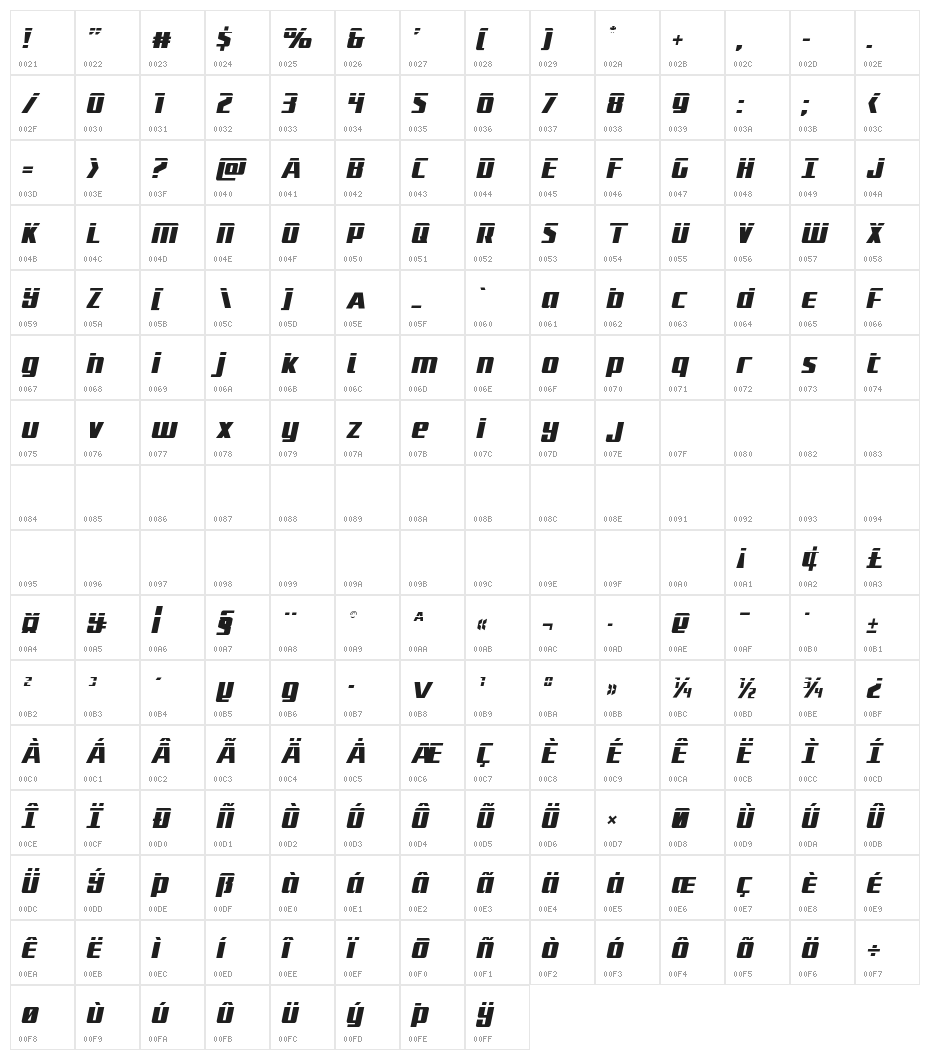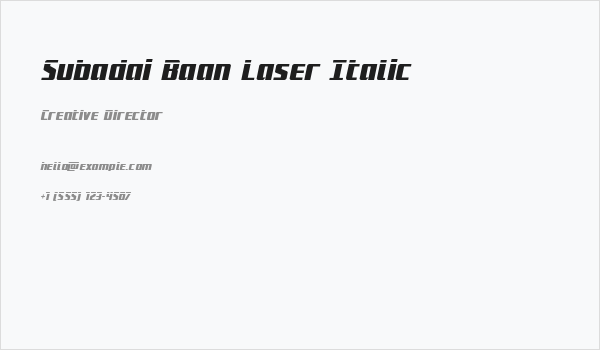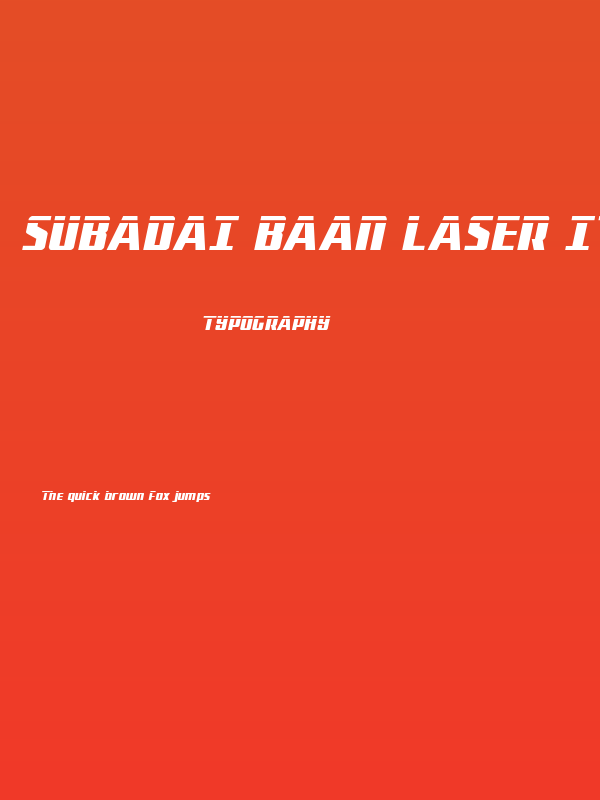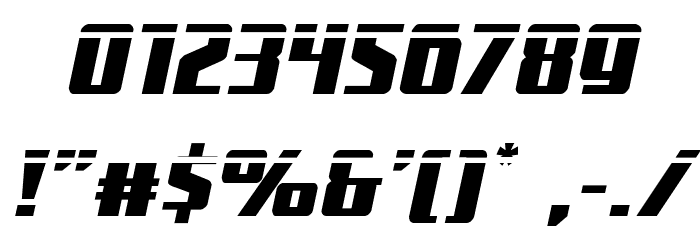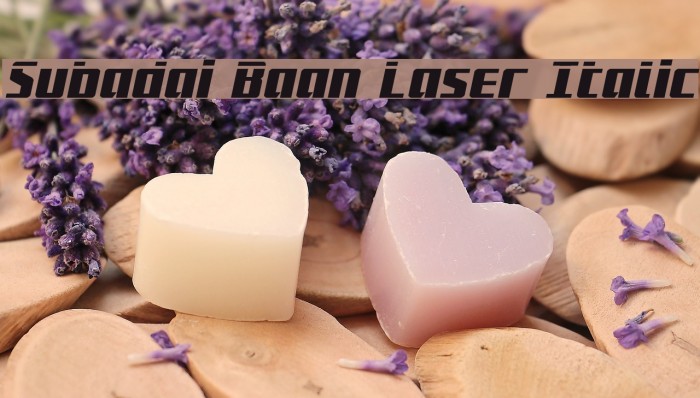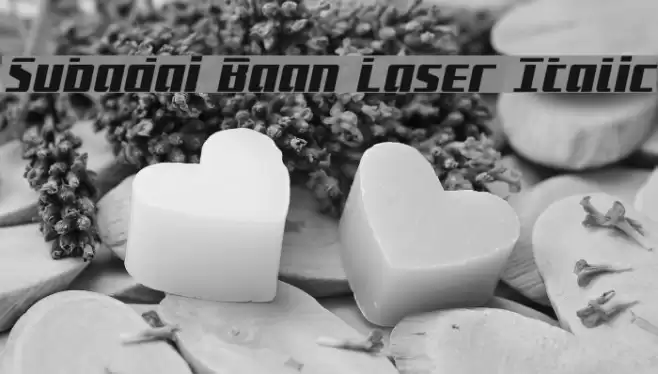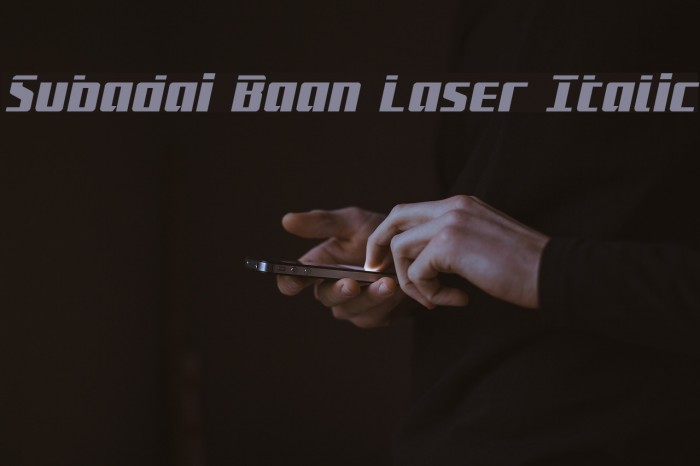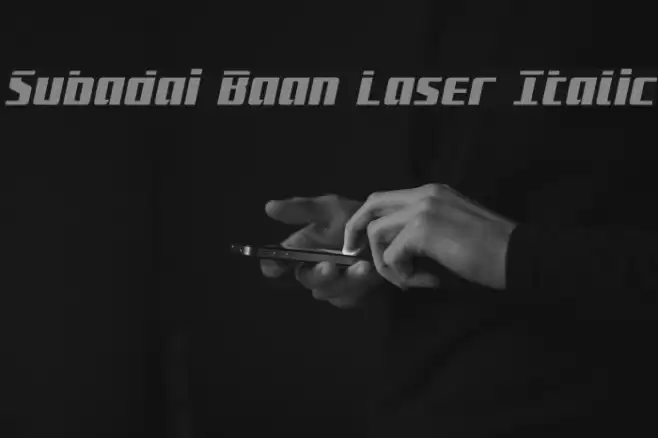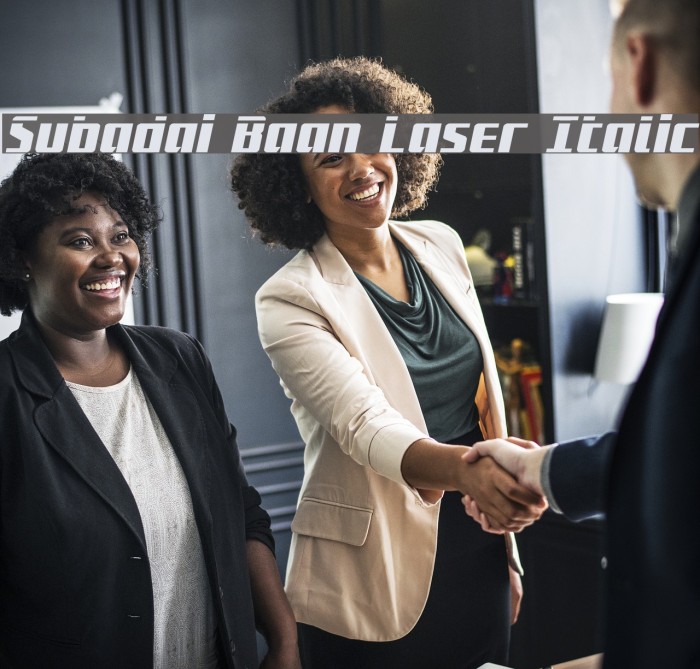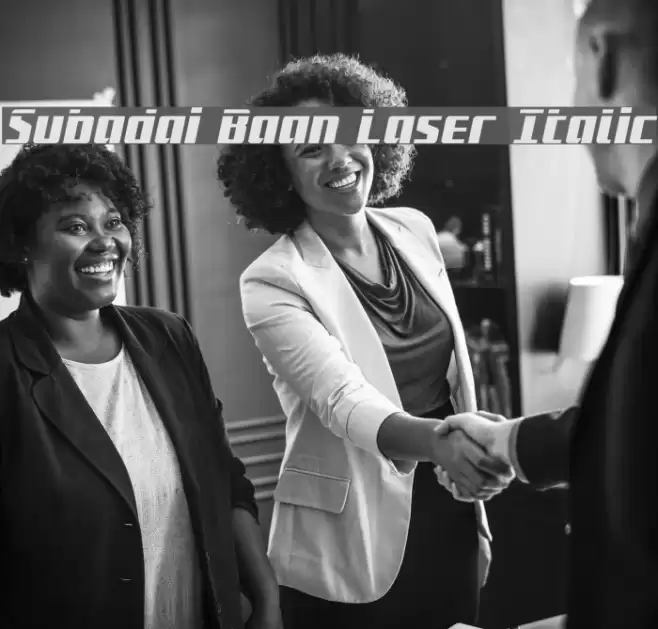
Subadai Baan Laser Italic Font
Subadai Baan Laser Italic Description
This font exhibits a bold and dynamic style with a futuristic flair. The characters are sharply angled, giving a sense of movement and speed. The uppercase and lowercase letters maintain a consistent slant, enhancing the italicized appearance. The numbers and special characters follow the same design principles, ensuring uniformity across all glyphs. The overall design is sleek and modern, suitable for projects that require a strong visual impact. The spacing between characters is tight, contributing to the compact and cohesive look of the text.
| Proposed Projects | Ideal for sports branding, tech-related designs, and dynamic advertising campaigns. |